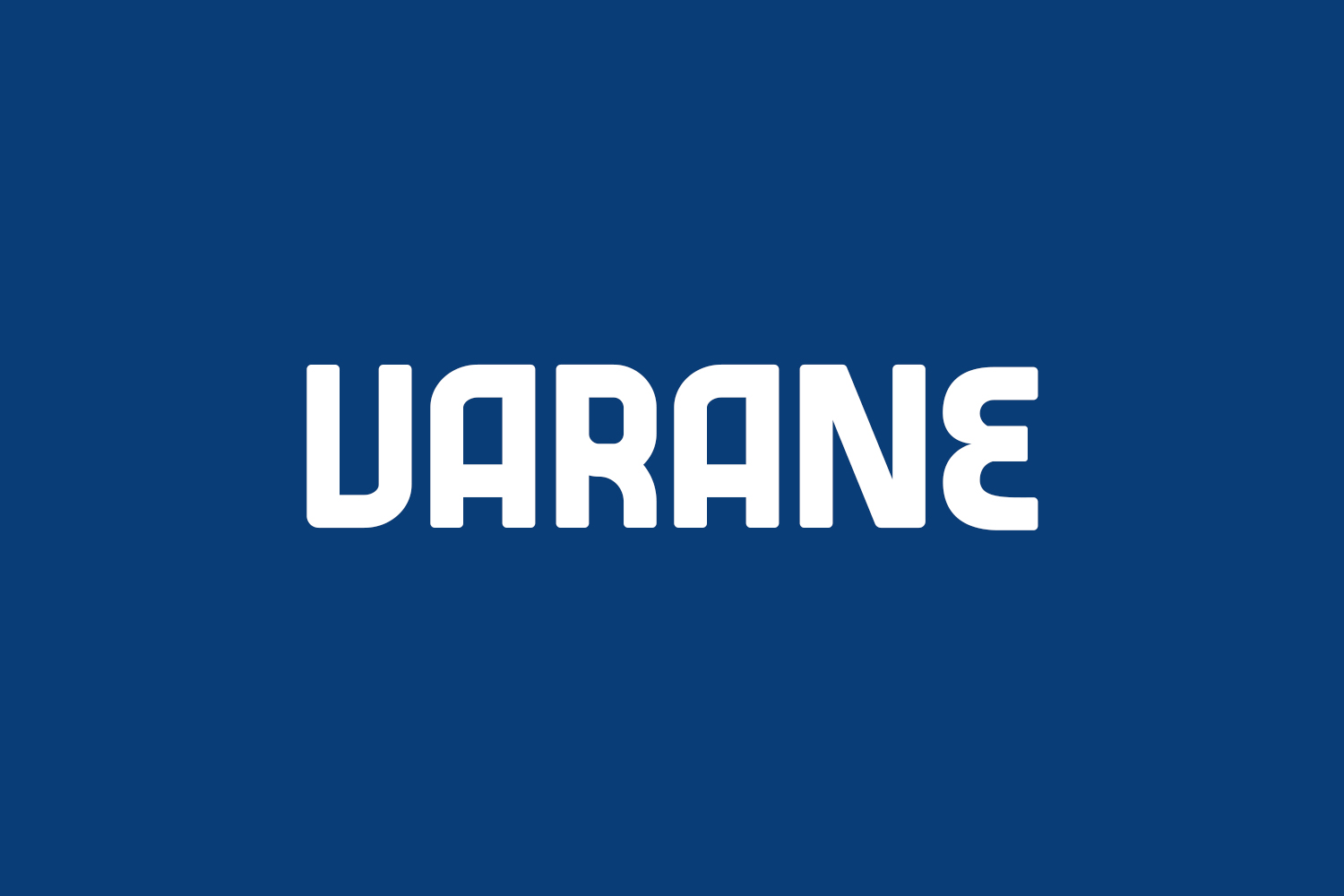
Varane Free Font is a strong, bold, and fiercely competitive display font that exudes confidence and determination. Its sleek and stylish letters seem to pulse with energy, daring you to take on the world with its fierce and commanding presence. Whether you’re crafting a powerful logo, creating a striking headline, or designing a bold and attention-grabbing poster, Varane Free Font is sure to make a statement and set you apart from the competition. So why wait? Embrace your inner champion and let Varane Free Font lead you to victory!